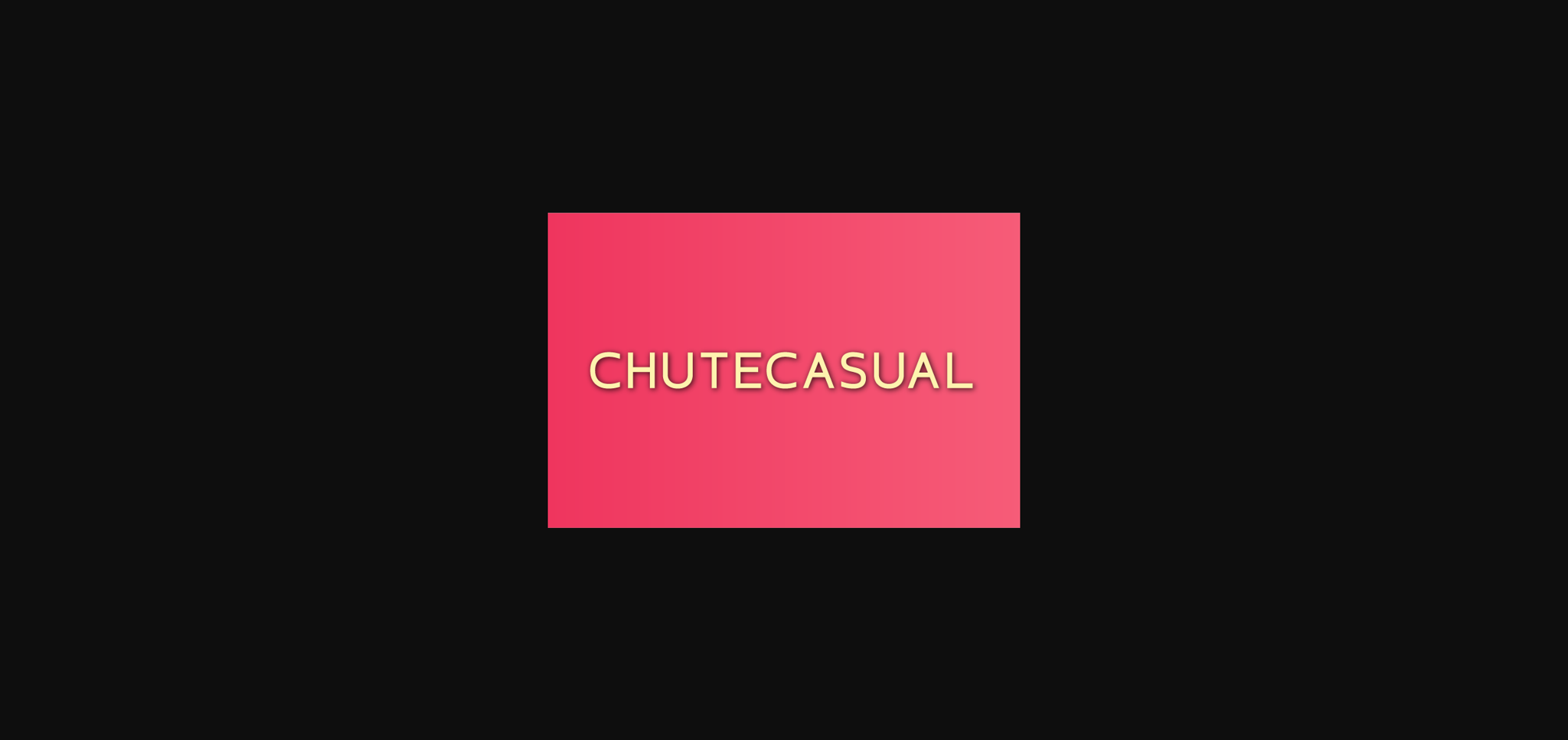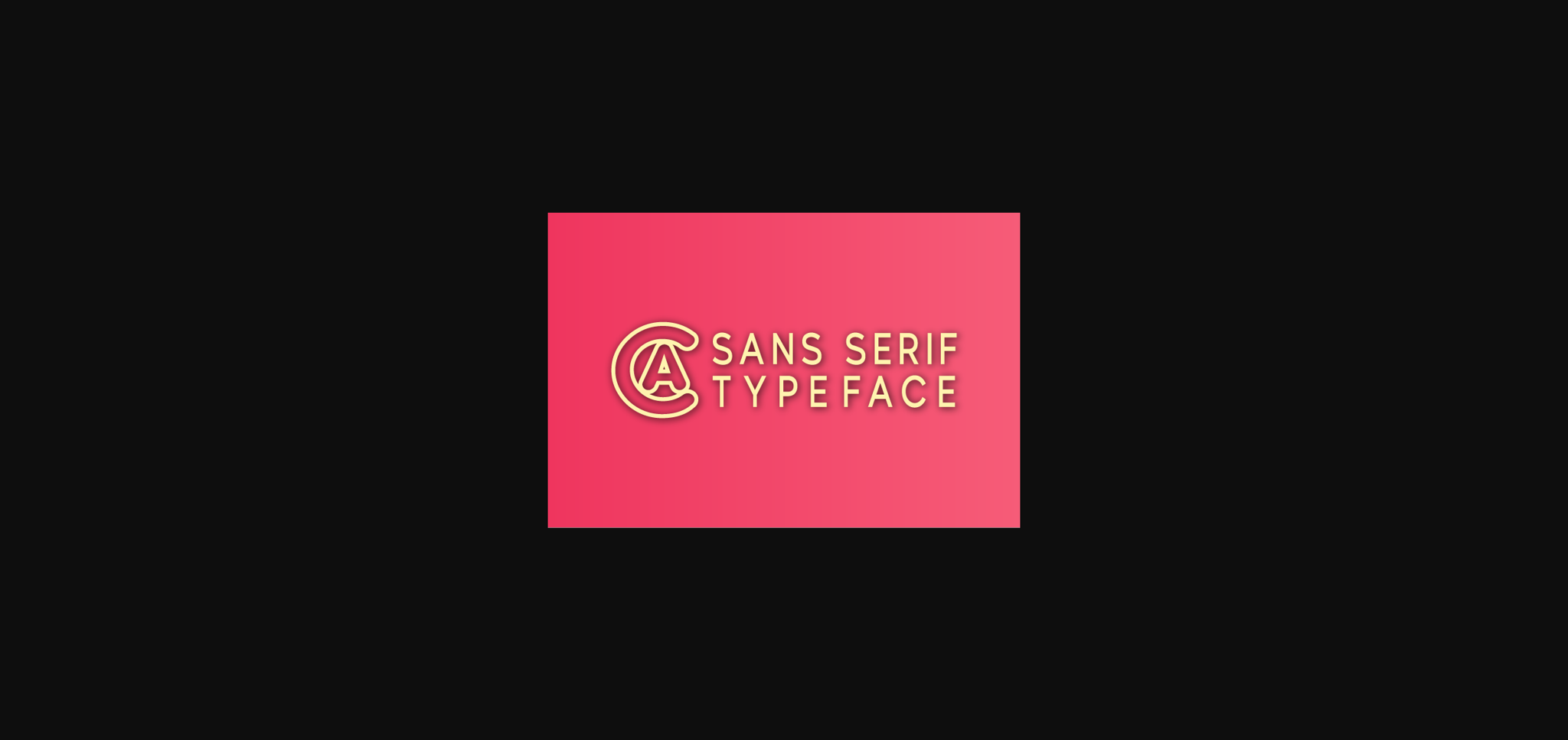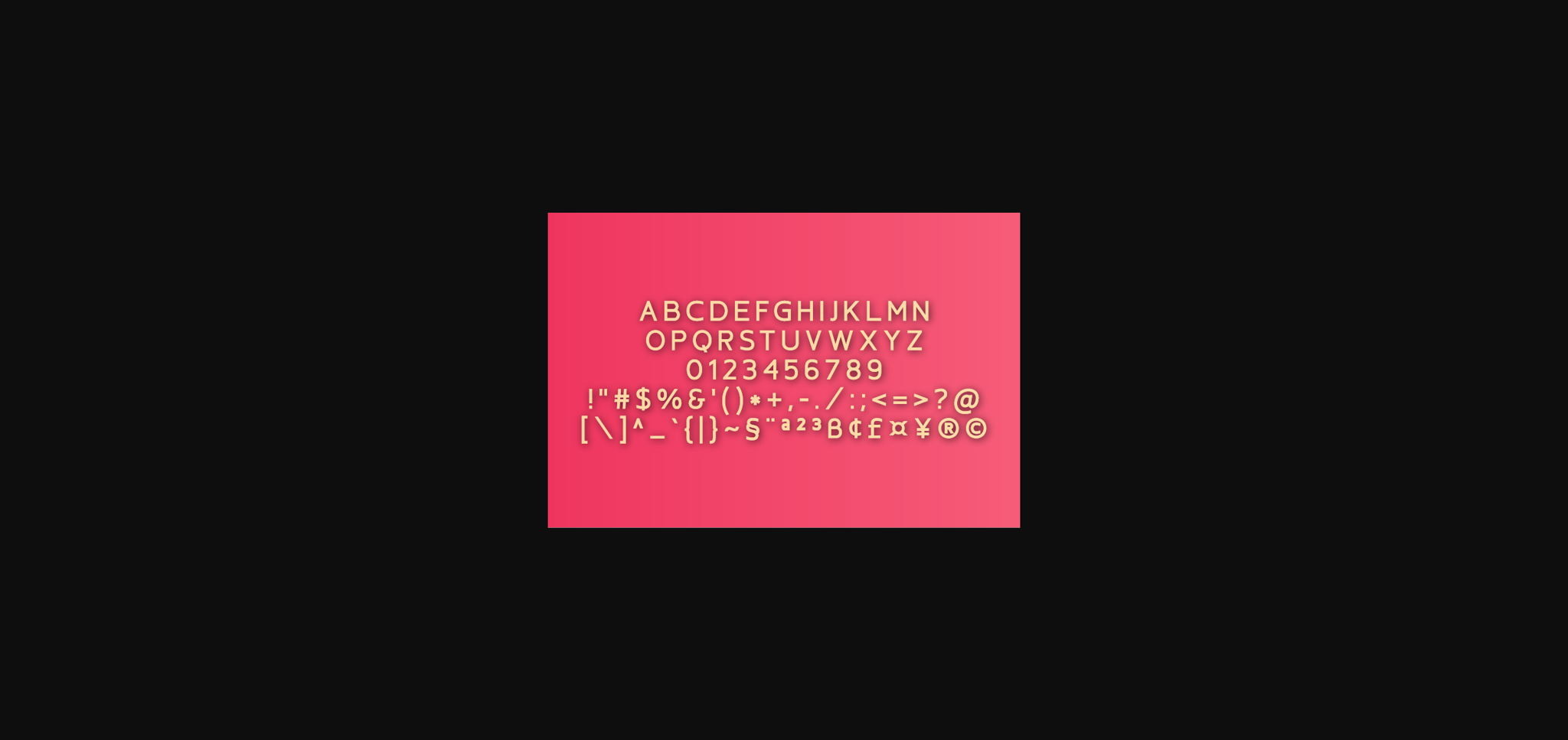
Chutecasual is a minimal and neat sans serif font. It can easily be matched to an incredibly large set of projects, so add it to your creative ideas and notice how it makes them stand out!